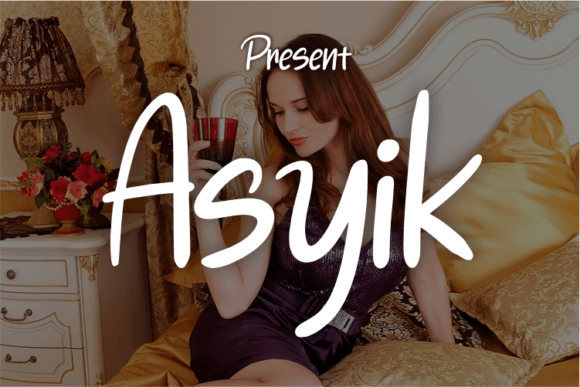
Introducing Asyik Font, the ultimate script typeface designed by the talented Eric Kusuma. With its simple yet modern look, Asyik is the perfect choice for anyone seeking an elegant and luxurious touch in their designs. Whether you're working on a logo, book or movie design titles, fashion brand, magazine, clothing, or even quotes, this font is guaranteed to elevate your creative endeavors.
Imagine the impact of a beautifully crafted logo that exudes sophistication and class. Asyik Font effortlessly captures attention and leaves a lasting impression on your audience. Its exquisite curves and fluid strokes create a sense of elegance, making it ideal for high-end brands and luxurious products.
Are you tired of the same old Christmas letter templates? Asyik Font offers a refreshing twist, infusing your holiday greetings with a touch of glamour. Let your loved ones receive your heartfelt messages in a stunning and unique format, making this year's Christmas letter truly unforgettable.
For designers seeking versatility, Asyik Font delivers. It adapts seamlessly to various design projects, adding a touch of charm to your fashion brand, magazine layouts, and even typography for quotes. Stand out from the crowd and make a statement with fonts that speak volumes.
Asyik Font isn't just a typeface; it's a testament to your creativity and attention to detail. Its sleek and refined appearance will captivate your audience and make your designs shine. Whether you're a professional designer or a passionate hobbyist, this font is your secret weapon for creating visually stunning masterpieces.
Don't settle for mediocrity when you can have excellence. Asyik Font elevates your designs to new heights, transforming them from ordinary to extraordinary. Experience the power of this captivating script typeface and unlock a world of endless possibilities.